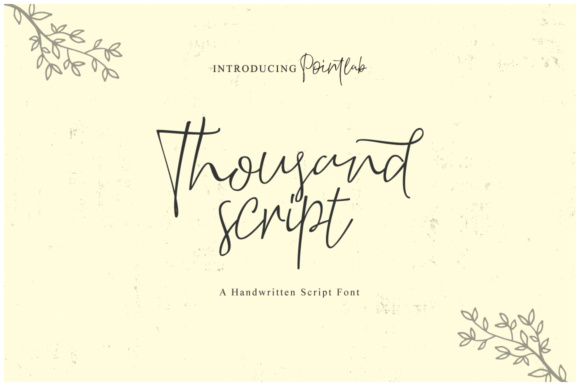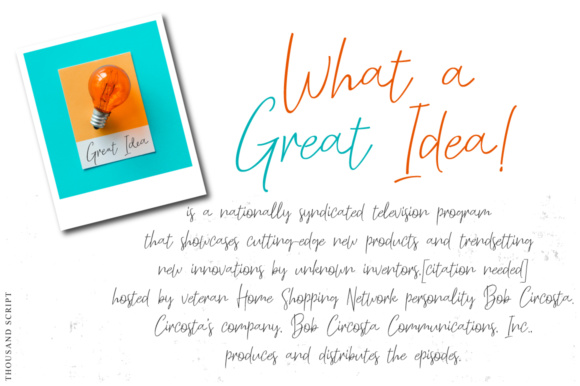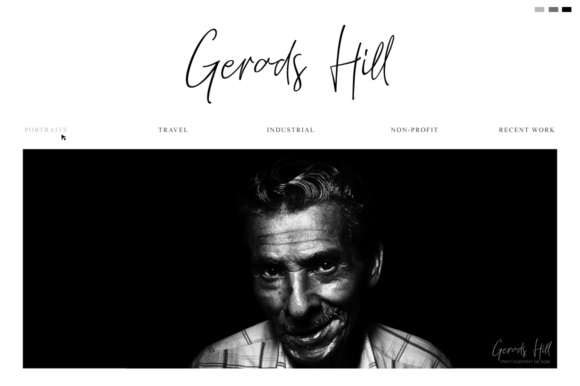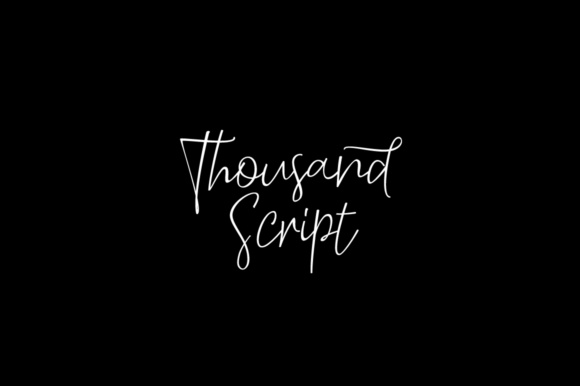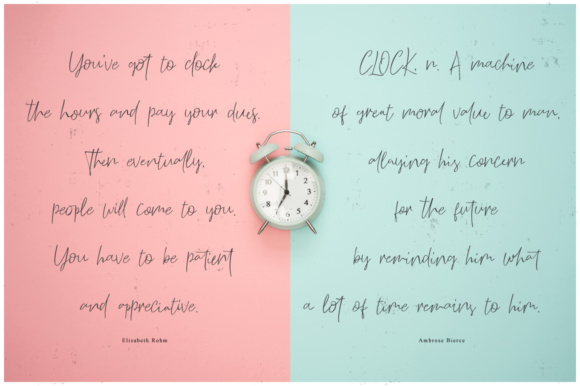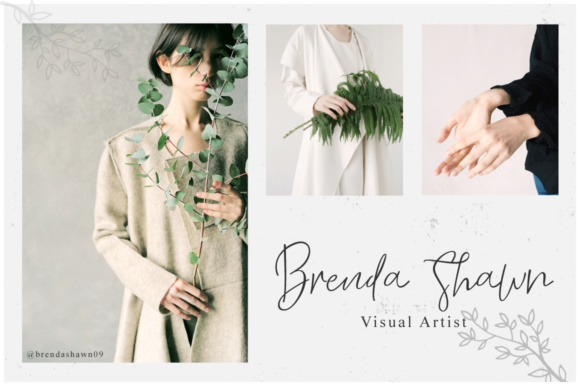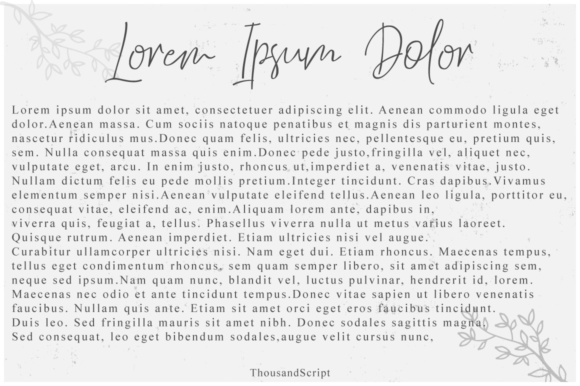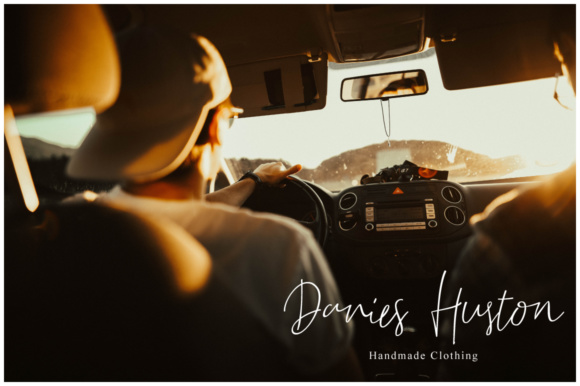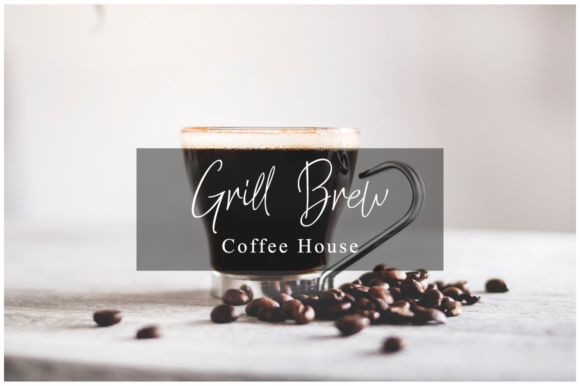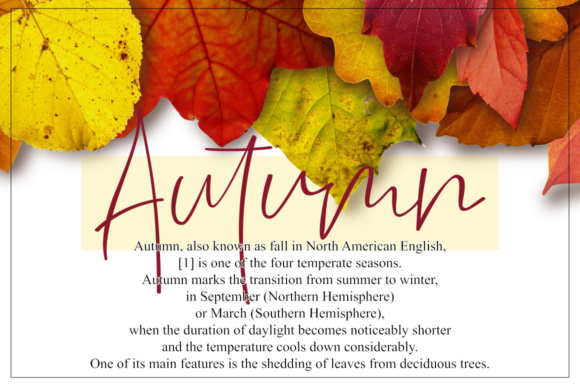
Thousand Script Font
The Thousand is a new, fresh & modern script with a handmade calligraphy style. It has decorative characters and a dancing baseline. Perfect for invitations, greeting cards, branding materials and much more!